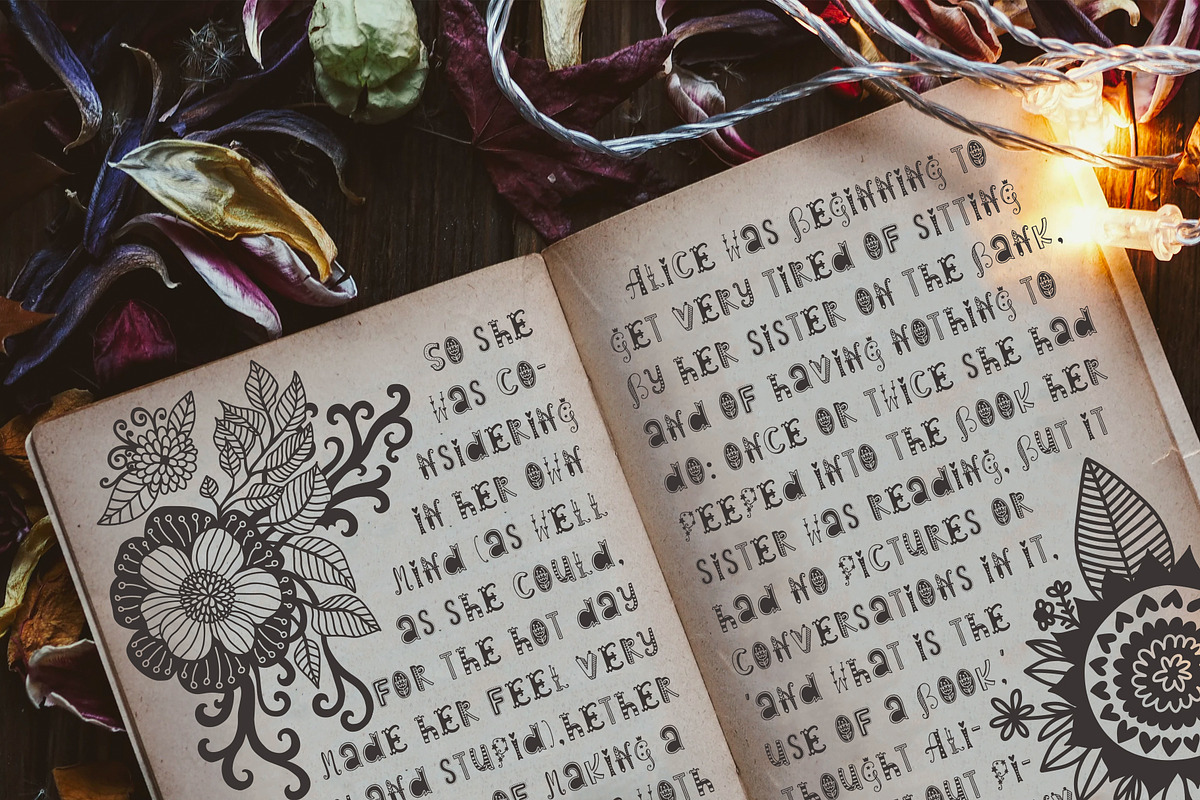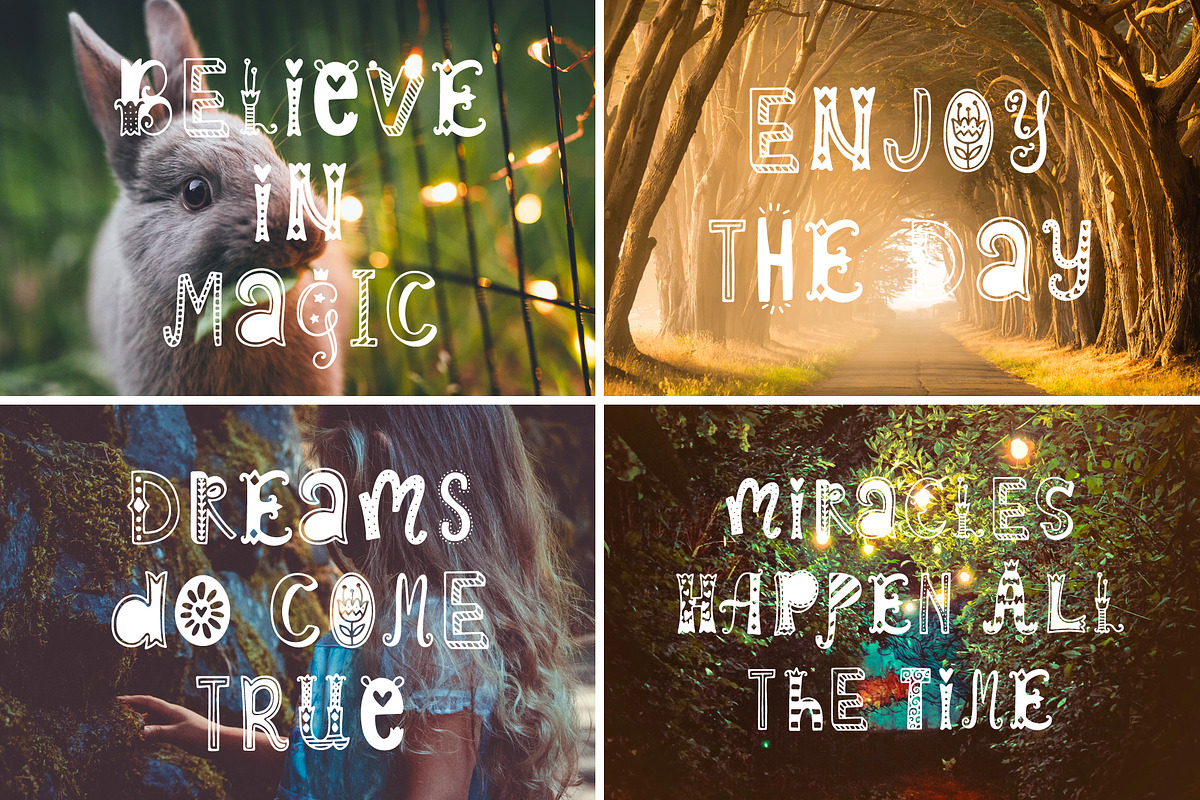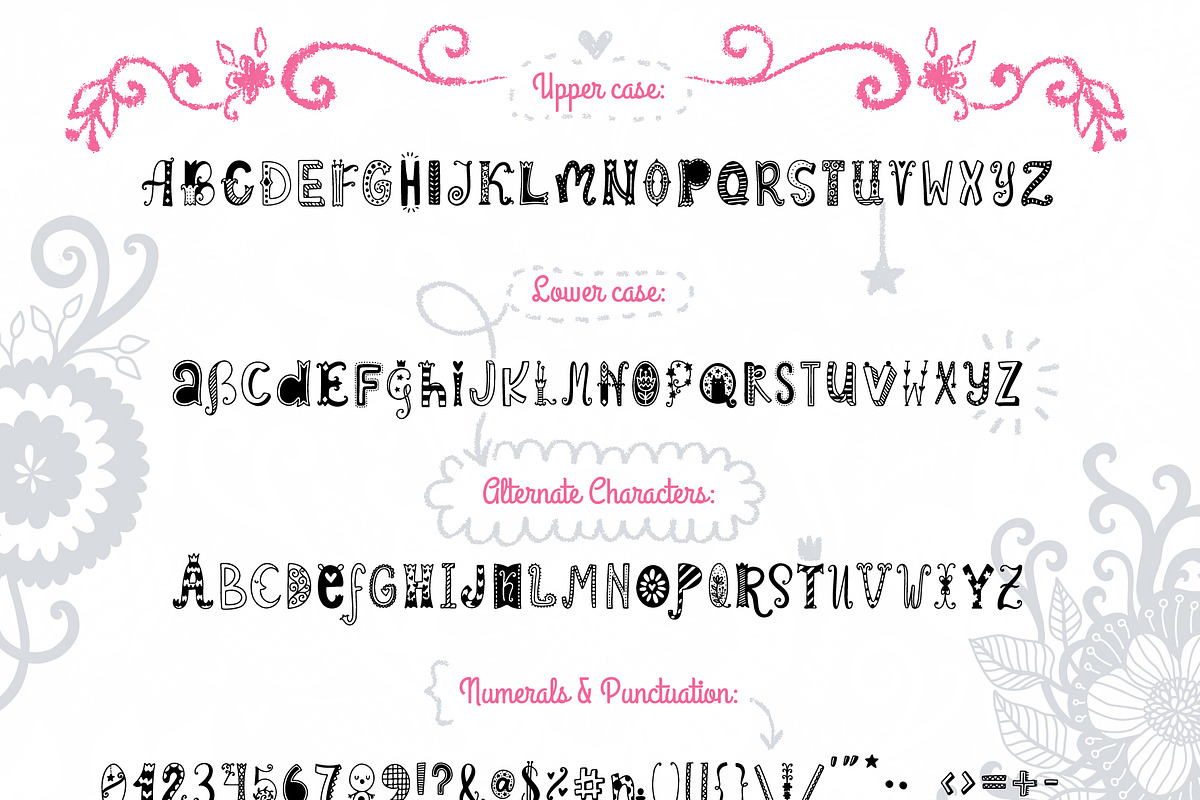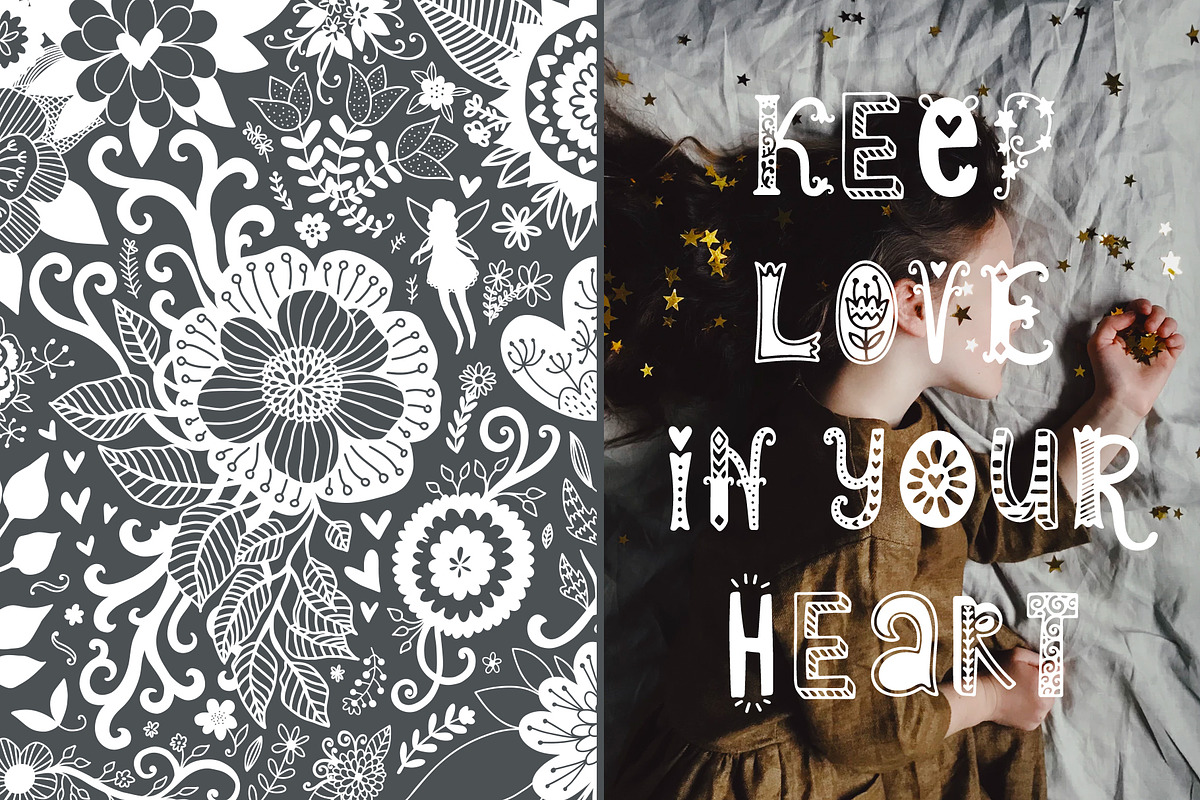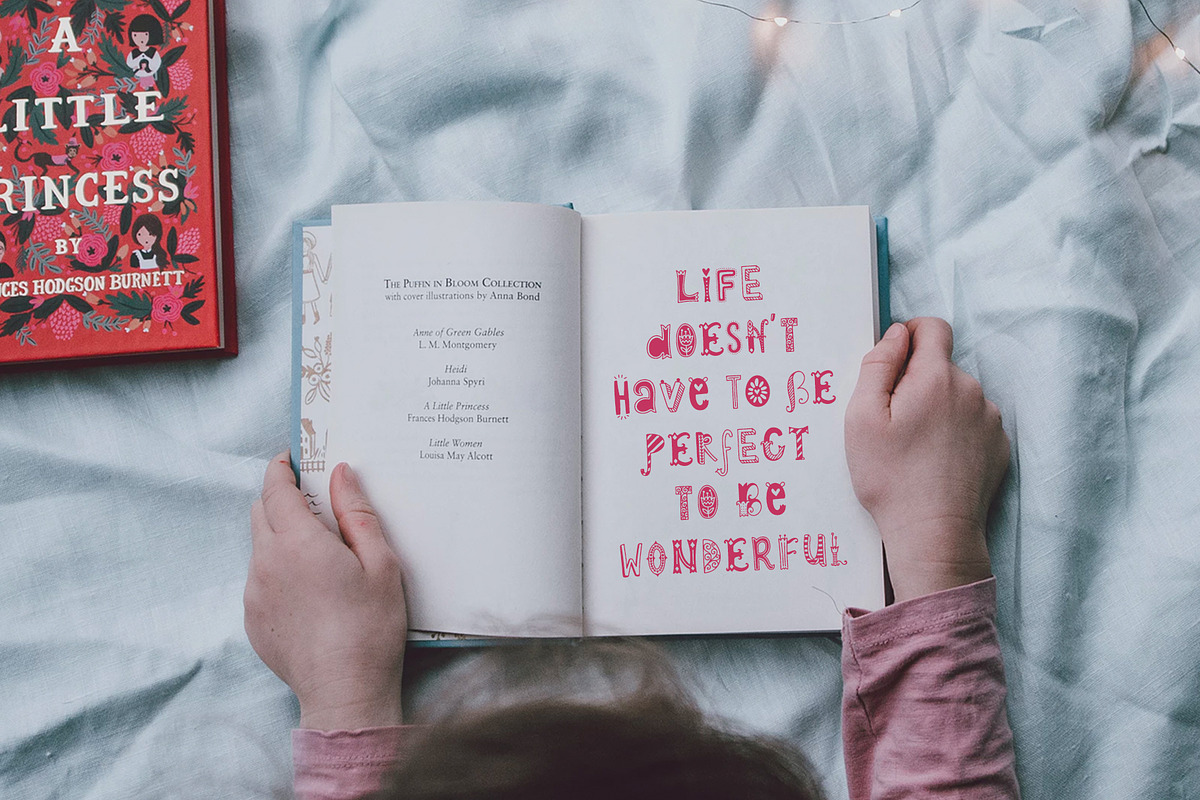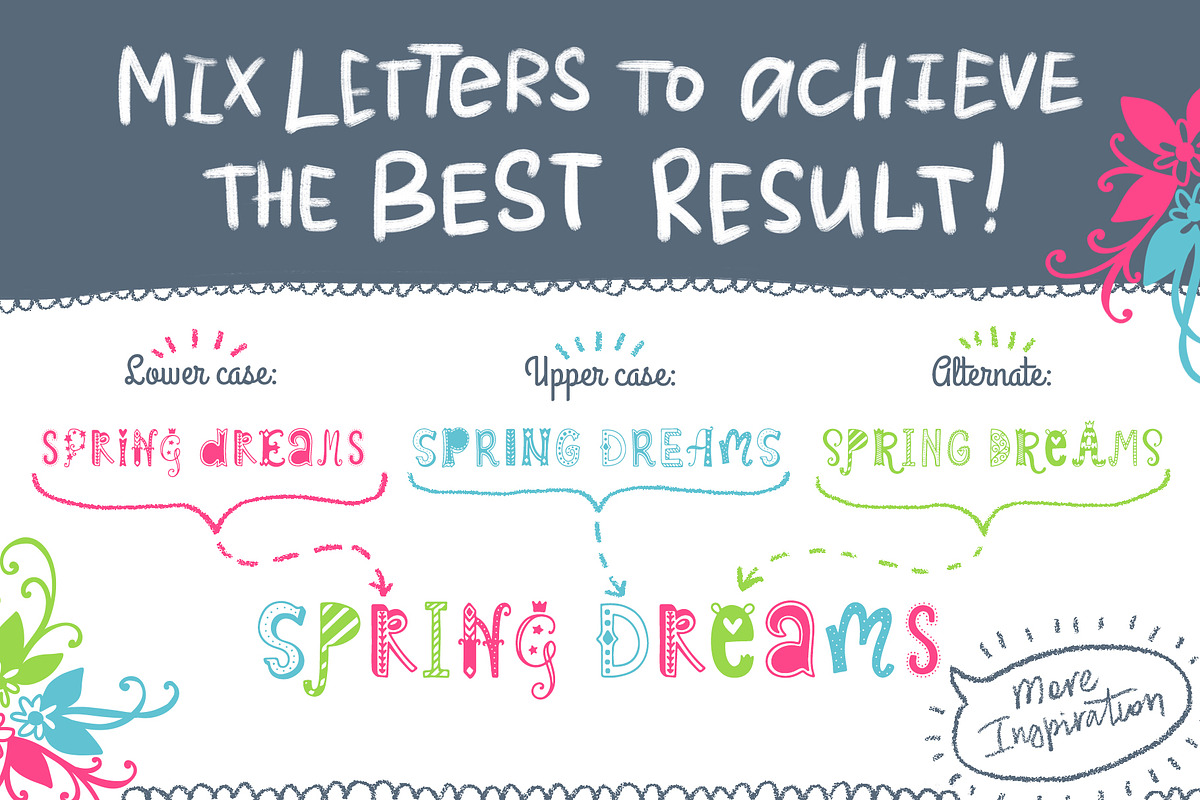
Spring Dreams Typeface with Clipart
♥ Spring Dreams Typeface - handwritten font for your projects! ♥
This hand drawn font is perfect for cards, prints, logos, wedding invitations, arrange illustration and decoration.
- It has upper and lower case letters, numbers, special characters, accents, alternates.